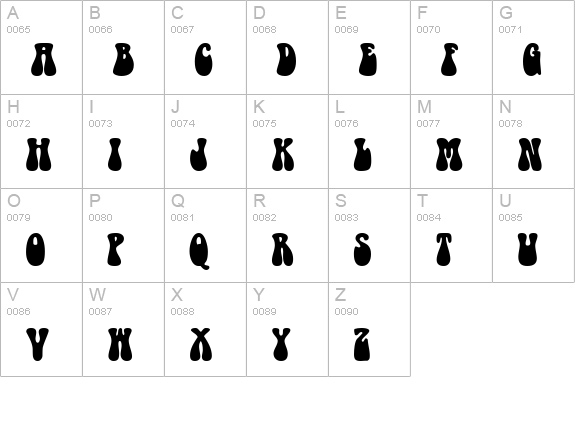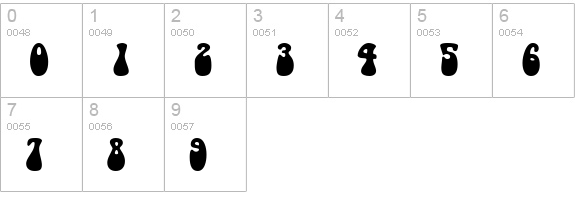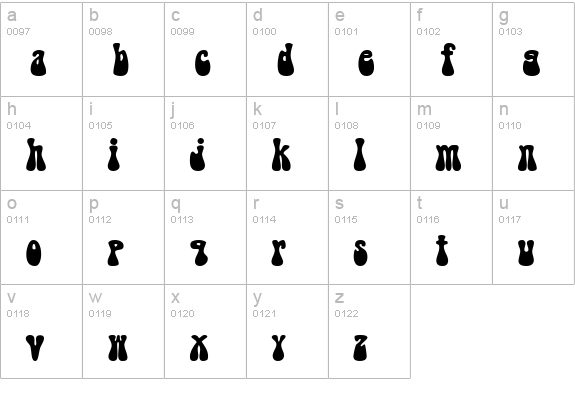
RaindropSSK Bold Font Details
RaindropSSK Bold is a strong, high-contrast variant in the RaindropSSK typeface family \xE2\x80\x94 well suited to headlines, attention-grabbing titles, and strong calls-to-action.
Introducing RaindropSSK Bold, a visually striking and bold font that is sure to make a statement in any design project. With its strong and commanding presence, this font demands attention and adds a touch of sophistication to any piece of work. RaindropSSK Bold showcases a unique and eye-catching design that effortlessly combines elegance and modernity. Its thick and bold strokes exude confidence, making it the perfect choice for headlines, logos, posters, and other attention-grabbing designs. But what truly sets RaindropSSK Bold apart is its availability for free! Yes, you read that right. This exceptional font is freely available to download at FontsMarket.com. Now you can enhance your projects without breaking the bank. Whether you're a professional designer or a creative enthusiast, RaindropSSK Bold offers versatility and style that will elevate your work to new heights. Its sleek and timeless design ensures that it will remain a staple in your font collection for years to come. So why wait? Download RaindropSSK Bold today and unleash your creativity with this incredible font. Don't miss out on the opportunity to add a touch of boldness and elegance to your designs, all while staying within your budget. Get your hands on RaindropSSK Bold and make a lasting impression with every project you undertake.